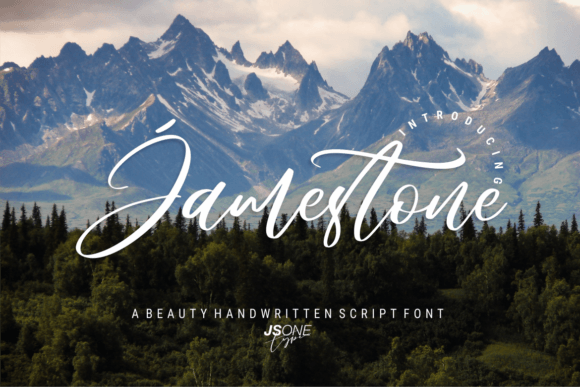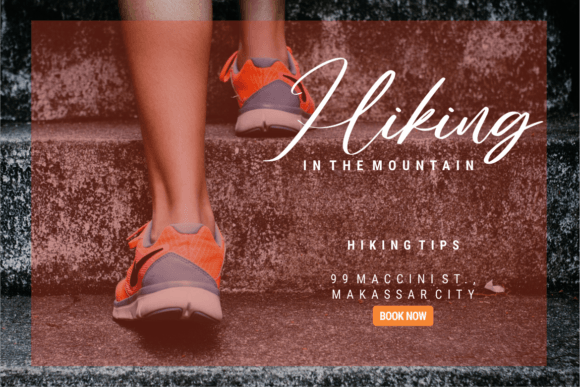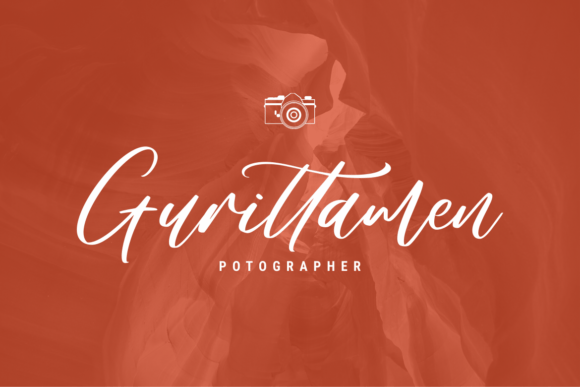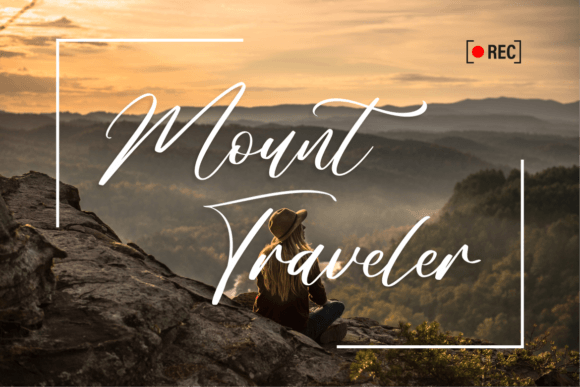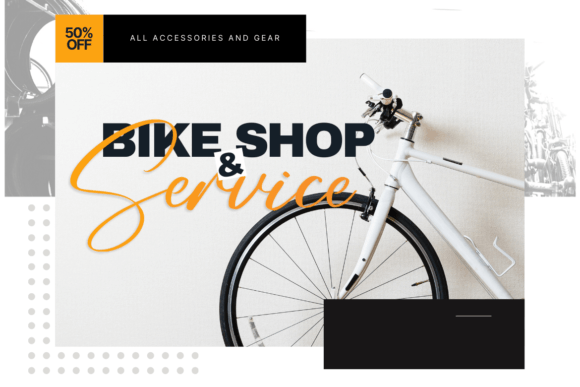
About Jamestone
Jamestone is a delicate, elegant, and stylish handwritten font. This versatile script font has a wide spectrum of applications ranging from greeting cards to headlines and is guaranteed to add a romantic feel to your next project.